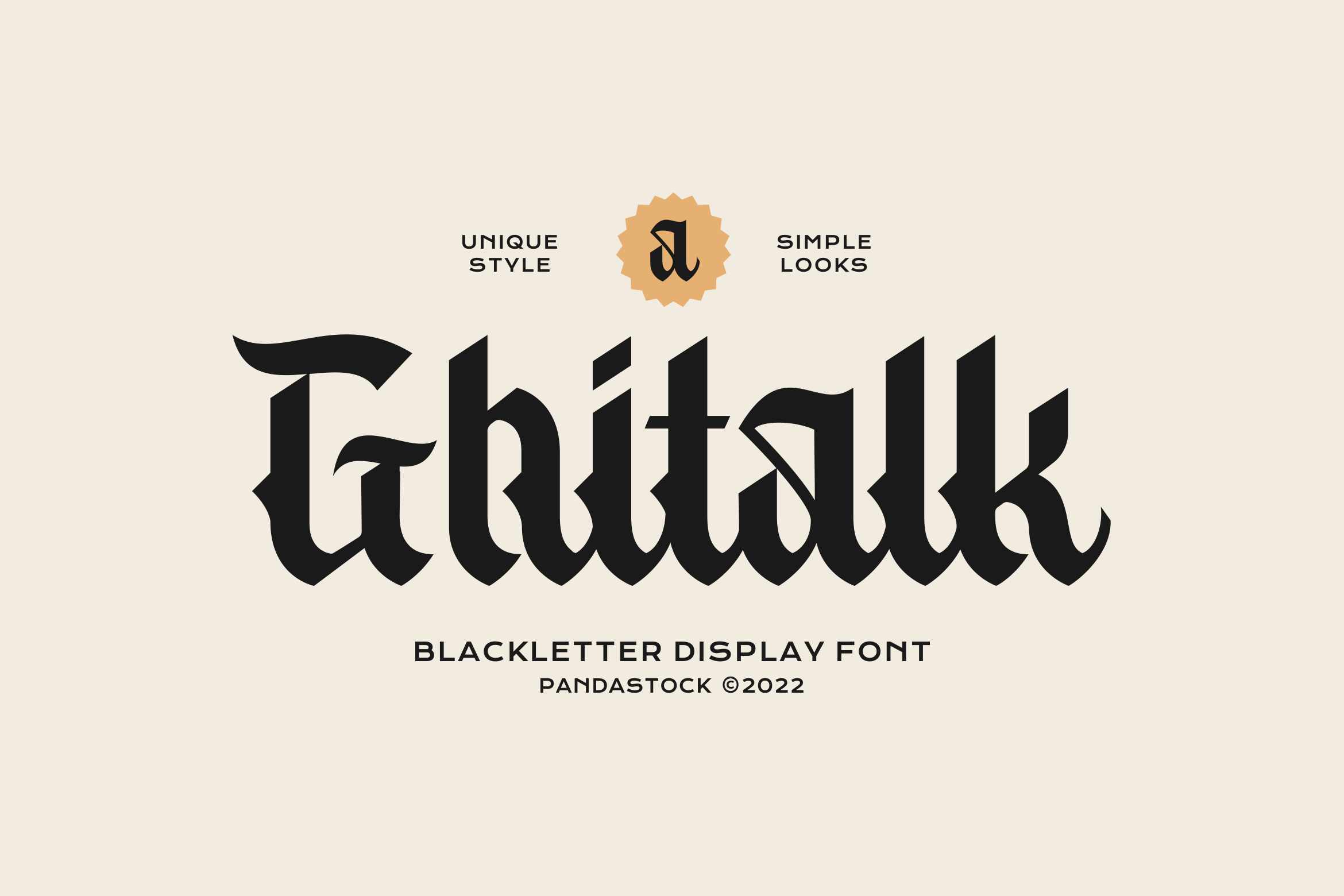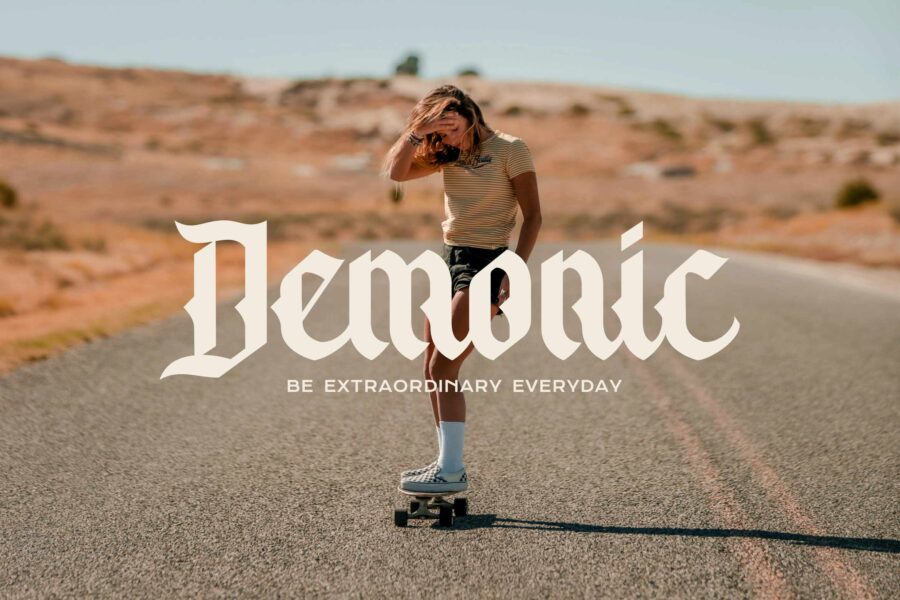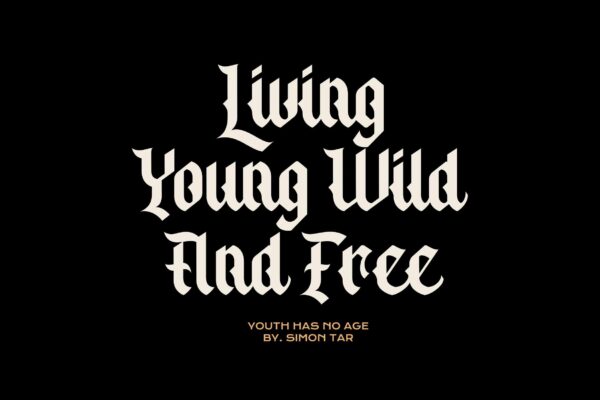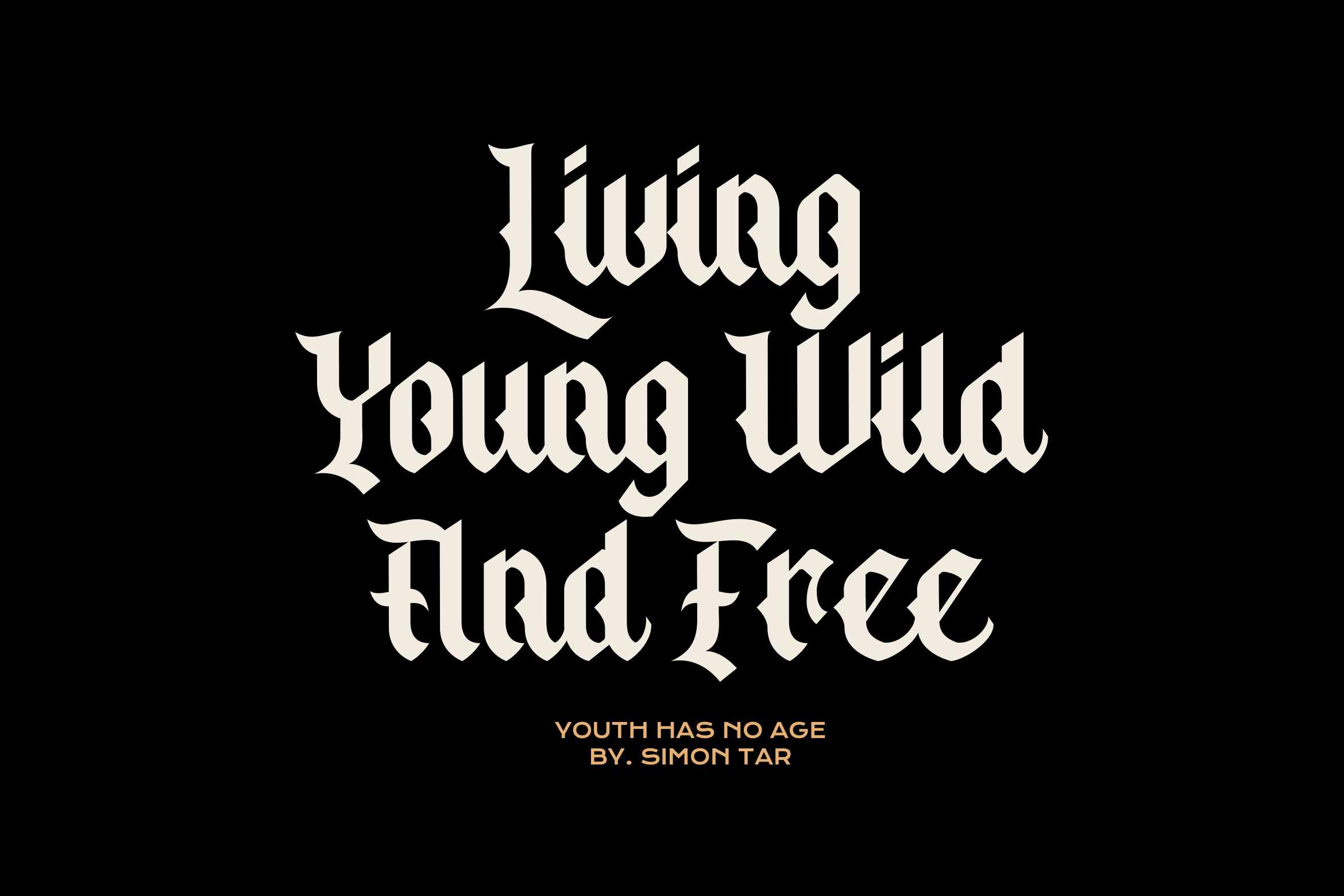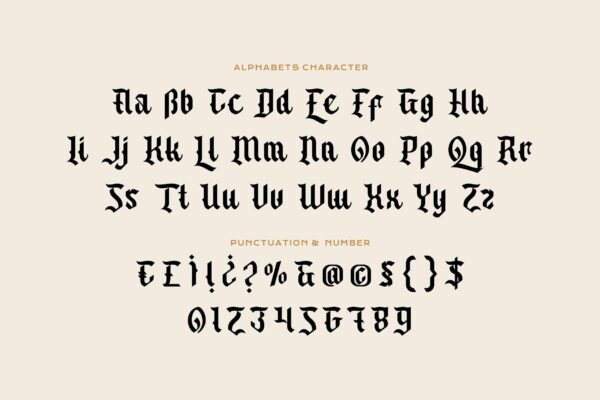
Ghitalk is a Blackletter Display Font that brings a bold and timeless character to your design projects. Inspired by traditional gothic scripts, it combines sharp edges with smooth curves, creating a balance between vintage elegance and modern appeal. Its strong visual presence makes it ideal for striking headlines, branding, posters, apparel, and any design that needs a dramatic statement.
Designed with versatility in mind, Ghitalk delivers both unique style and simple readability, making it suitable for contemporary creative projects as well as retro-inspired designs. Whether used in fashion branding, music artwork, event posters, or lifestyle products, it adds an unmistakable edge that elevates your visual identity.
Ghitalk